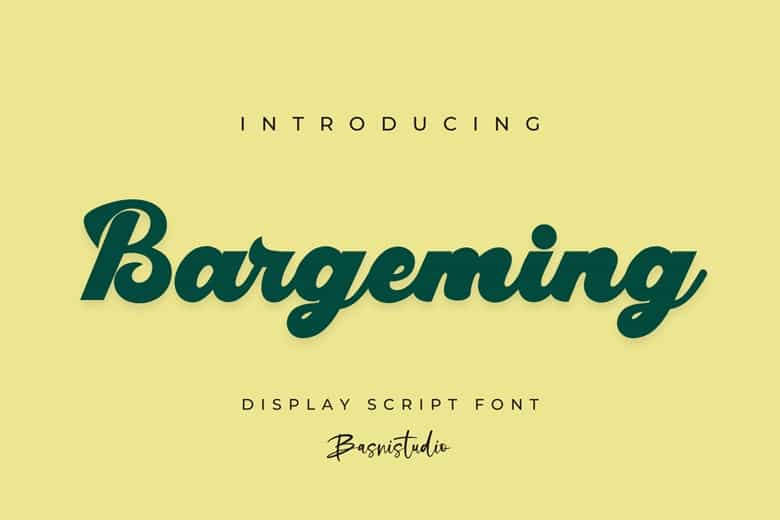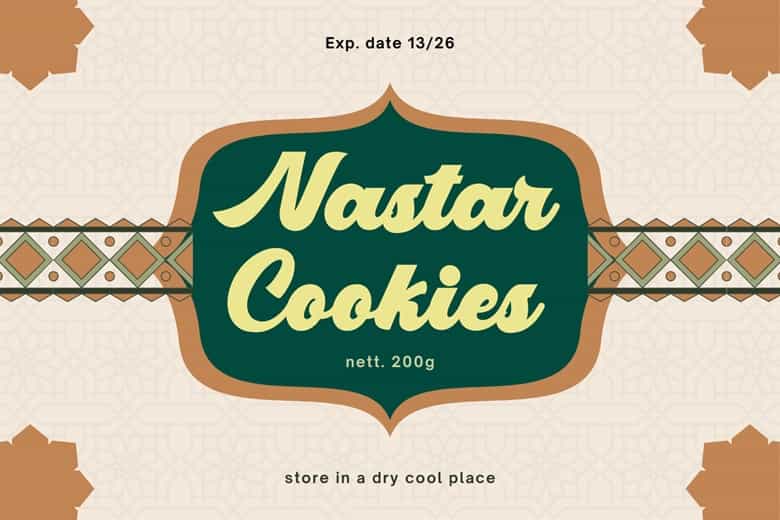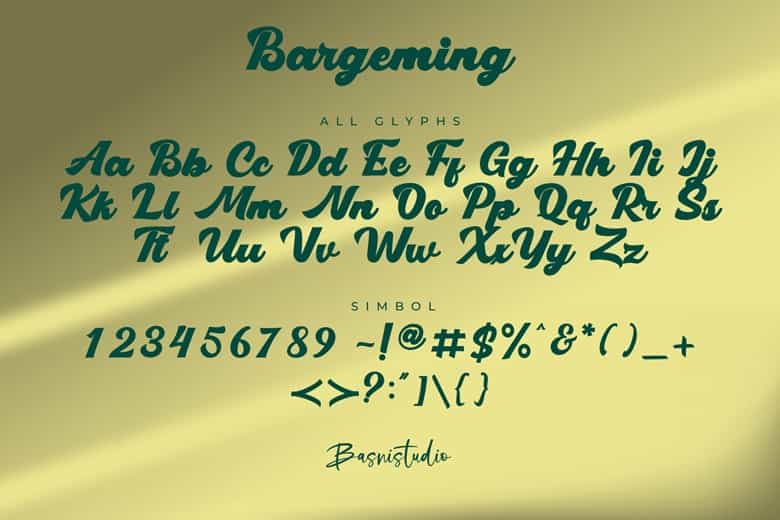
Bargeming is a new elegant display script font. Great for Personalized greeting cards Creative logos and branding Inspiring quotes and social media posts Stunning website headers. Make Every Word Stand Out! Bargeming Display Script Font is a font that allows users to convert normal text into stunning pieces of art.